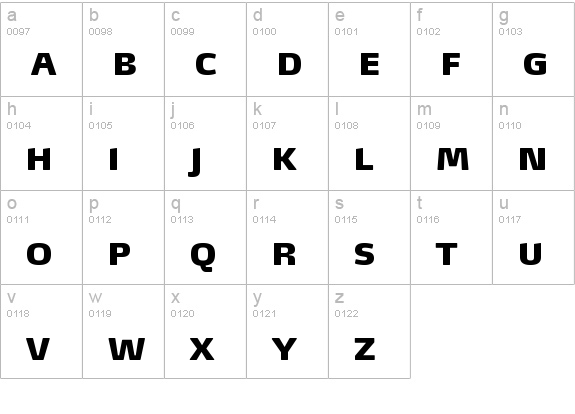
Max-ExtraBoldSC Font Details
Max-ExtraBoldSC is a striking and bold sans-serif font that demands attention with its powerful and impactful design. Its extra bold weight makes it perfect for creating eye-catching headlines and impactful titles that stand out. The font exudes a sense of strength and confidence, making it ideal for projects that require a bold and authoritative look. Max-ExtraBoldSC is freely available to download at FontsMarket.com, allowing designers and creatives to access this powerful font for their projects without any cost. With its clean and modern appearance, Max-ExtraBoldSC is versatile and can be used across a wide range of design applications, from branding and advertising to packaging and web design. Whether you're looking to make a bold statement or add a touch of modernity to your designs, Max-ExtraBoldSC is the perfect font choice. Download it for free today at FontsMarket.com and unleash its bold and commanding presence in your projects.